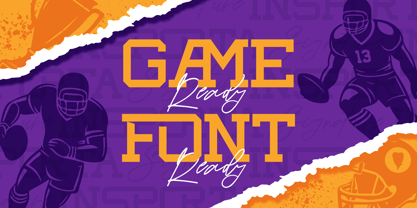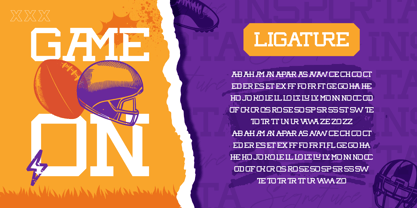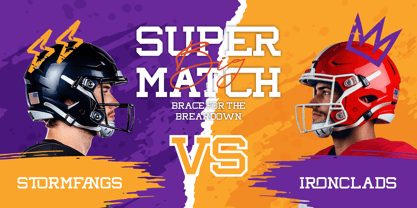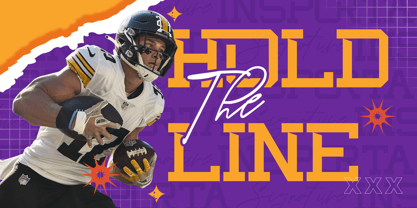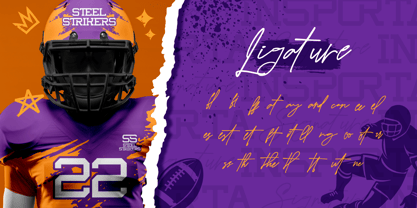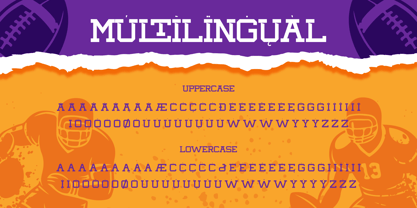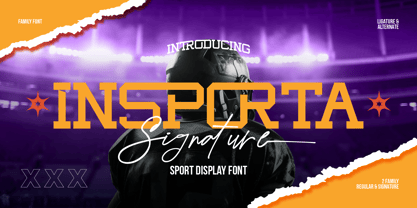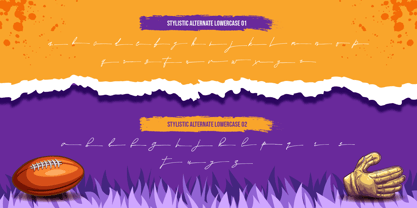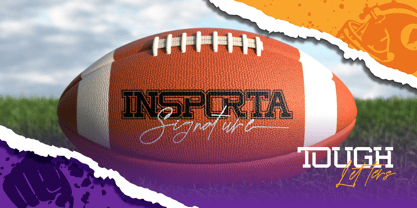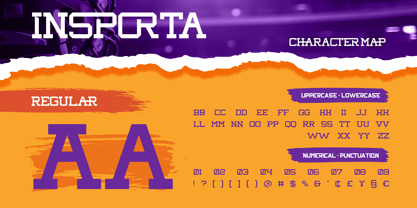
Insporta Signature
The Insporta Signature Font Family was designed by Eric Kurniawan and published by Burntilldead. Insporta Signature contains 2 styles and family package options. More about this family
Insporta Signature is a bold and energetic font duo designed to bring the spirit of competition into every design. This sporty typeface combines a strong all-caps serif font that inspired by college varsity aesthetic with a stylish signature script. Perfect for sports branding, athletic posters, team logos, or game day merchandise, Insporta Signature combines modern varsity typeface vibes with a personal, handwritten touch. Whether you're designing for a football match, a college event, or a fitness brand, this sports team font has got you covered. With its classic varsity vibe and modern handwritten twist, Insporta Signature delivers a “game day ready” look that stands out.
Features:
• Uppercase & Lowercase (all caps for serif)
• Number
• Punctuation
• Alternates
• Ligatures
• Multilingual